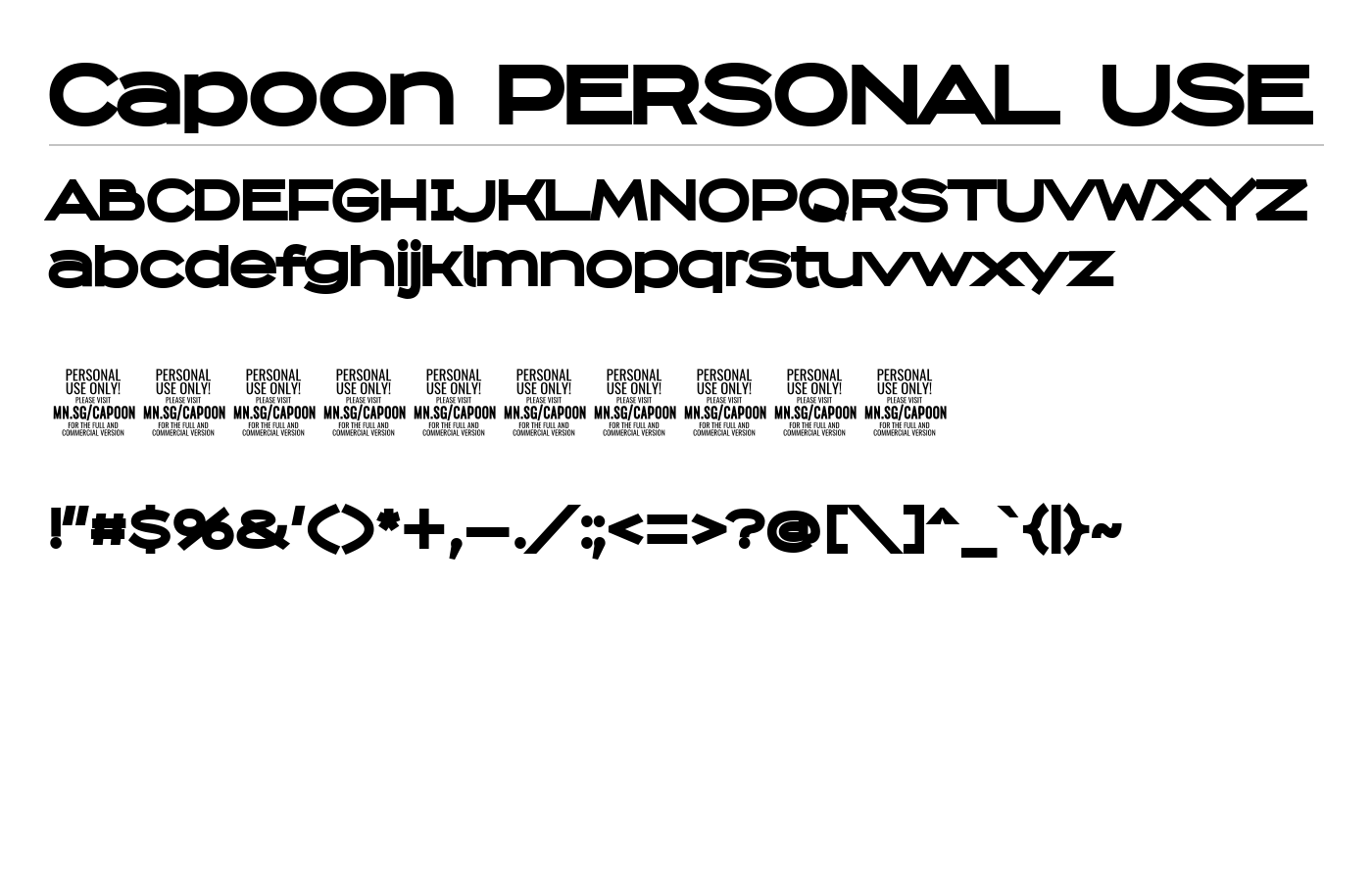
Capoon PERSONAL USE is a bold, geometric sans-serif font with a modern and slightly playful character. Its thick, solid strokes and tight spacing create a strong visual impact, making it ideal for headlines, logos, and branding that demand attention. This font’s clean, straightforward letterforms convey confidence while maintaining a friendly and approachable feel.
Capoon PERSONAL USE Font
About Capoon PERSONAL USE Font